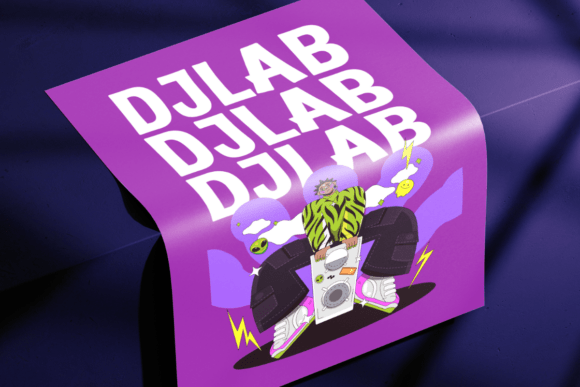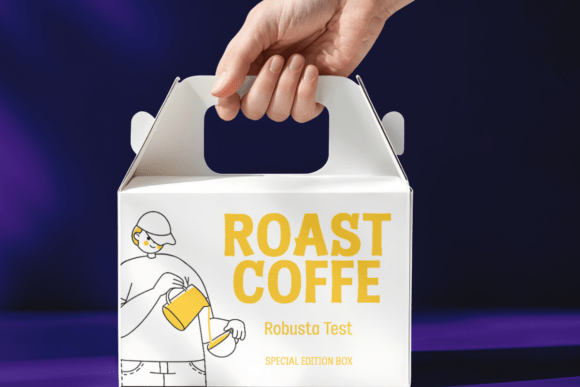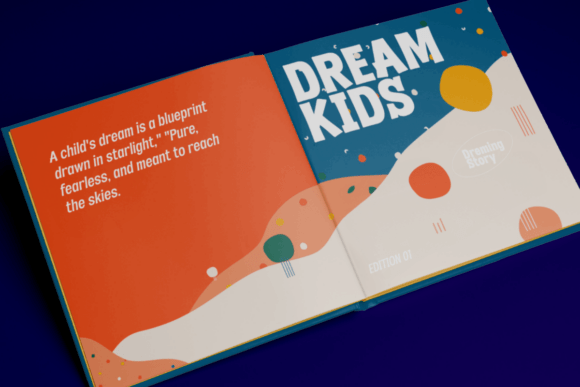
Introduction to Kelaba Sans Font
Have you ever stared at a blank canvas, waiting for the perfect font to bring your creative project to life? The moment you discover a typeface that captures the essence of your vision is pure magic. For designers seeking a powerful yet harmonious typographic presence, the search is over – welcome to the world of Kelaba Sans Font.
Engineered for high-impact applications, Kelaba Sans Font masterfully balances a bold, impactful appearance with essential legibility. This versatile typeface boasts a strong character, making it the perfect choice for crafting memorable headlines, commanding news titles, or creating a distinctive element within a logo or compelling product branding. Whether you’re working on a free download design resource or a high-quality creative project, Kelaba Sans Font is an invaluable asset that ensures every piece of text stands out with confidence and clarity.
Key Features of Kelaba Sans Font
- High-quality, modern sans-serif font design suitable for creative projects.
- Designed to be highly legible, even at small font sizes, making it ideal for body text in creative projects.
- Supports a wide range of languages, making it a versatile choice for global design applications.
Honest Review: Kelaba Sans Font
As a designer, I’m always on the lookout for high-quality design resources to enhance my creative projects. Recently, I stumbled upon the Kelaba Sans Font, and I’m excited to share my honest review with you.
What works well: ✨ The Kelaba Sans Font is incredibly versatile, making it suitable for a wide range of design applications. Its clean and modern design gives it a professional touch, perfect for corporate materials, digital products, and even websites. I also appreciate the fact that it comes with a transparent background, which is a nice touch for those who want to customize their design further.
Overall, I’m impressed with the Kelaba Sans Font. It’s a great addition to any designer’s toolkit, and its high quality ensures that it will last for a long time. If you’re looking for a reliable design resource, I would definitely recommend giving it a try.
- Clean and modern design
- Great for corporate materials, digital products, and websites
Tips for Getting the Most Out of Kelaba Sans Font
For optimal results, use Kelaba Sans Font in conjunction with a transparent background to create a modern and sleek design. You can also experiment with different font sizes and styles to add visual interest to your creative project.
Kelaba Sans Font is ideal for a variety of creative projects, including logos, brochures, business cards, and presentations. Its clean and modern design makes it a popular choice for designers and non-designers alike.